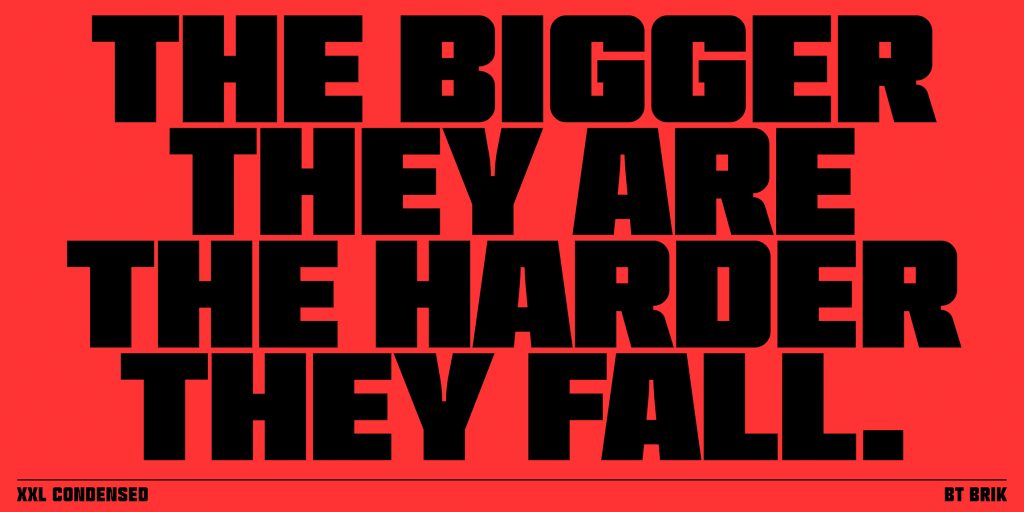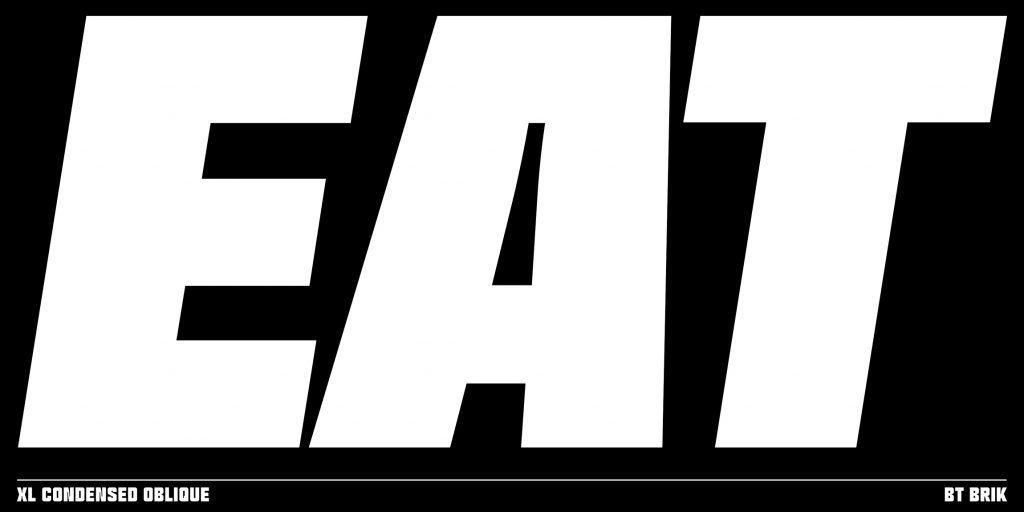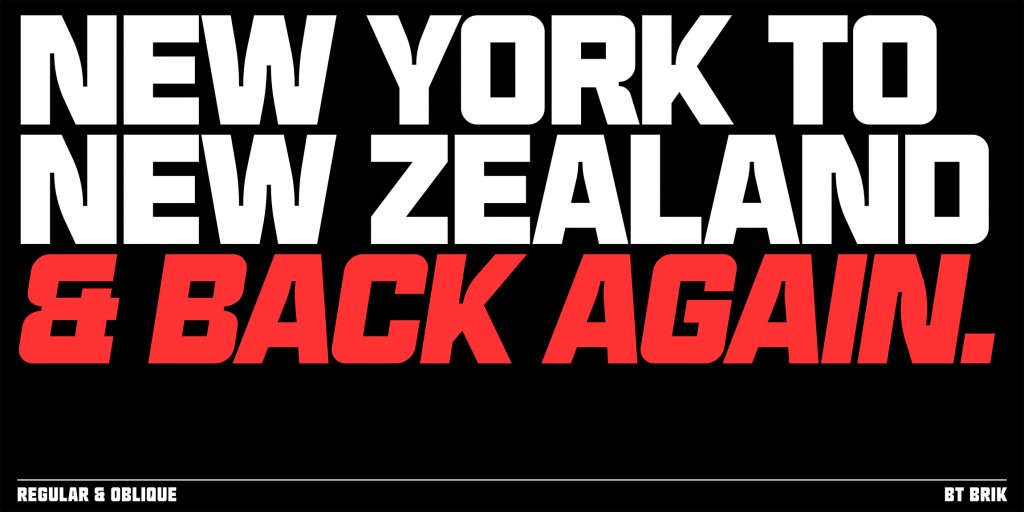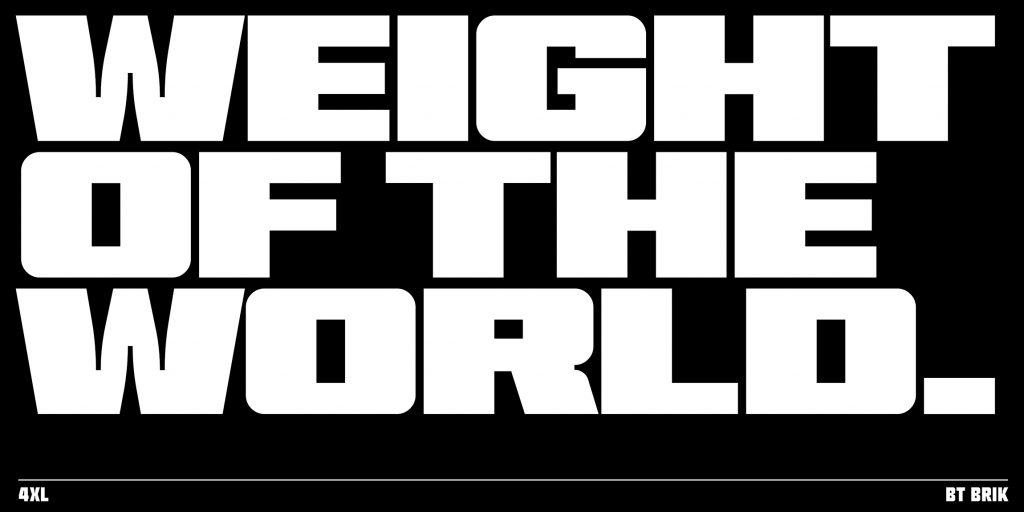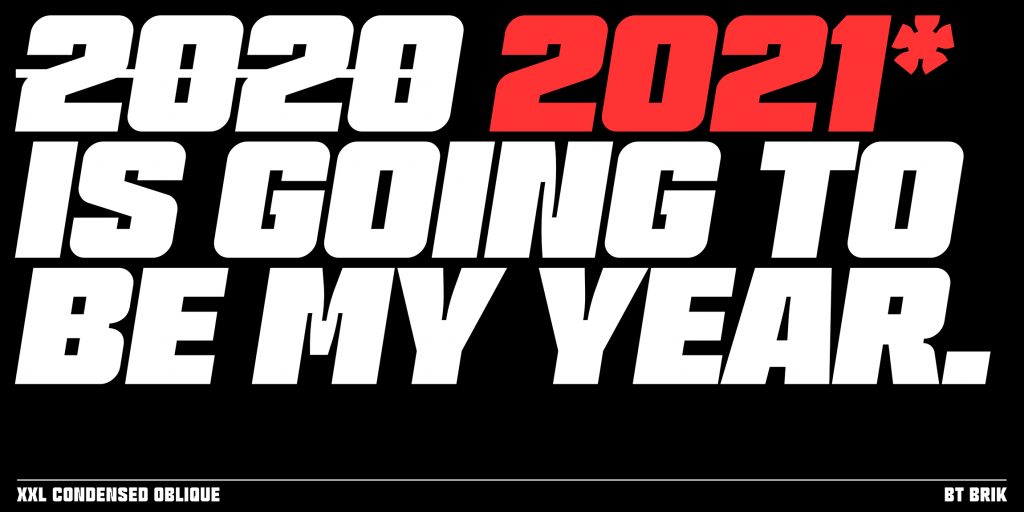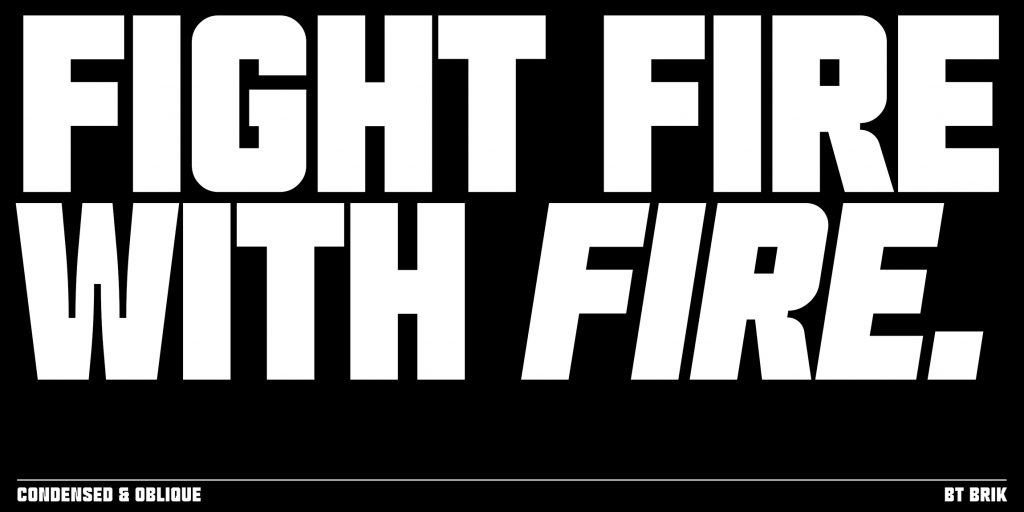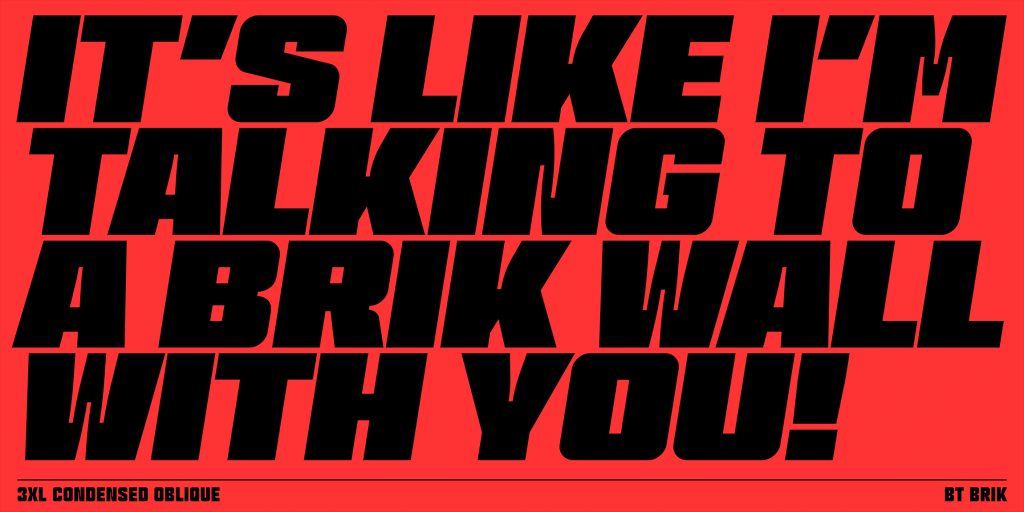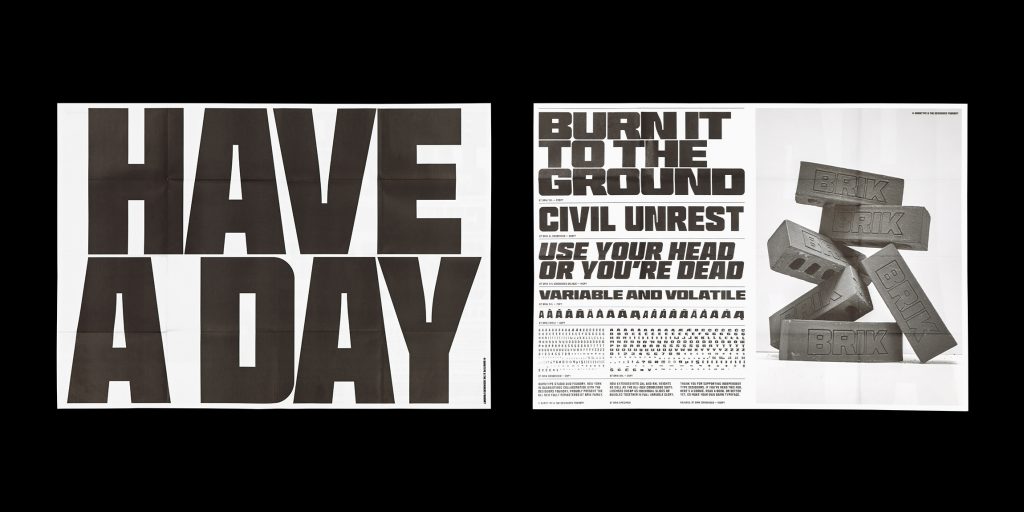
Name: Brik
Designer: Michael Bagnardi
Foundry: TDF/BurnType
Release Date: June 2021
Back Story: Sometimes, you just have to kill your darlings. Brik was initially released in 2018 (and EoD covered it here), yet Bagnardi wasn’t fully satisfied with several aspects of it. So he redrew it this year—completely. As in, total overhaul. “I’ve learned a lot more about type over the last three years and noticed things with the original cut that I felt could be improved upon,” he says. “So I burnt down the original Brik and started over. I used this opportunity to expand it into a heavier, tighter condensed suite as well.”
Looking at it up close, you might not notice much has changed, unless you’re an eagle-eyed type fanatic. But step back and read a larger passage of text, and you’ll see that Brik, as a whole, feels better. Optical adjustments to various letters and numerals (C,3,4,7) plus longer brackets, a heavier percentage mark, and more refined superscripts and subscripts create better legibility. Improved kerning and spacing give everything a more even color.
Why’s it called Brik? McQueen described the original Brik release thusly: “Its hardened letterforms could smash a window.” The TDF website refers to the new version as “a zero bullshit type family,” which sums it up quite nicely, too.
What are its distinguishing characteristics? Its blatant brick-like construction is honest, coarse, and unapologetic. The family features characteristic hard angles, chunky corners, and exaggerated ink traps that add a distinct edge. These hardened features are met with subtle curves and strokes that add contrast and finesse to the letterforms’ purposefully rigid foundation. Available in 20 weights, all heavy.
What should I use it for? Making a point. Burning things down and rebuilding them better. It has always worked great at large sizes—throw it on a T-shirt, or a sign—but now it works even better at smaller scales.
What other typefaces do you like to pair it with? Let’s ask the designer. “The fun thing about Brik is it has this clear construction and point of view that you can play off of. Maybe you go more neutral with a sans serif like Tomato Grotesque, or you play off the rigidity with something geometric, like Shape, or a script. You could also create some really great contrast with something more experimental and curvaceous like Skanaus or GabyGaby,” says Bagnardi.